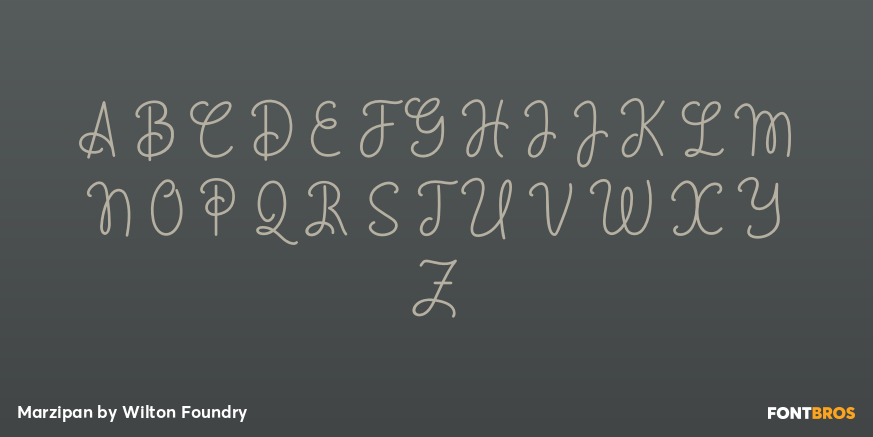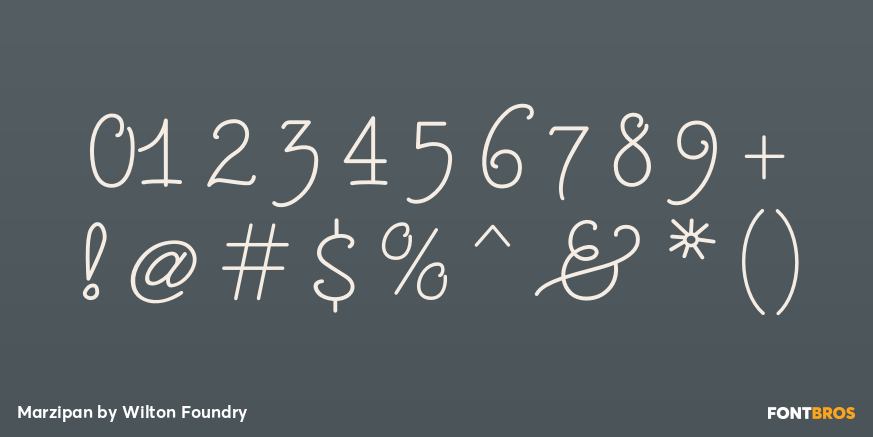
Marzipan
Font Family by Wilton Foundry
The spontaneously fun font for all things whimsical! Outrageous and gregarious, Marzipan is great for a multitude of applications including brochures, identities, packaging and scrapbooking.